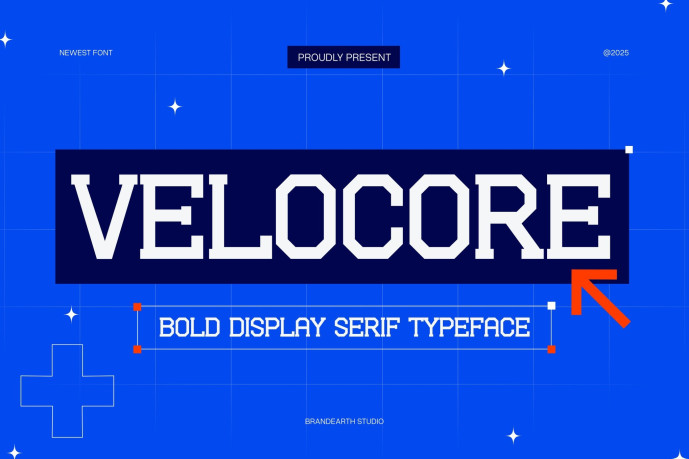
Velocore Serif Font
Designer: BrandEarth
Velocore Font is a bold display serif typeface inspired by strength, speed, and modern athletic energy. Its octagonal letterforms and sharp serifs deliver a powerful industrial look, making it ideal for sports branding, automotive design, technology logos, and impactful editorial titles. Velocore brings a dynamic presence to any project whether for posters, gaming covers, or digital headlines combining rugged boldness with geometric precision.
Relevance and Use Cases is perfect for sports branding, gaming typography, automotive design, bold logo design, esports identity, technology branding, modern editorial titles, varsity posters, competition graphics, event promotions, merchandise design, strong visual headlines, creative agency showcase, industrial advertising, digital cover design, fitness and gym branding, bold typographic layouts, futuristic sports campaigns, professional team identity, motivational poster design.